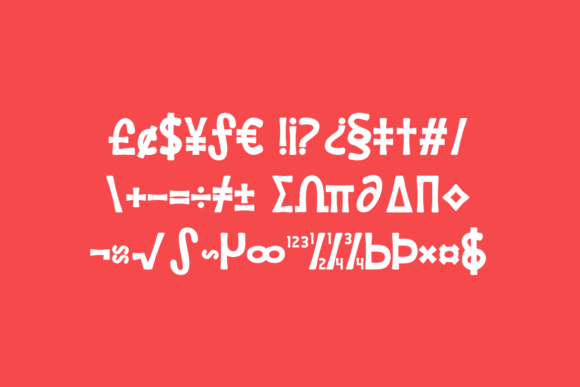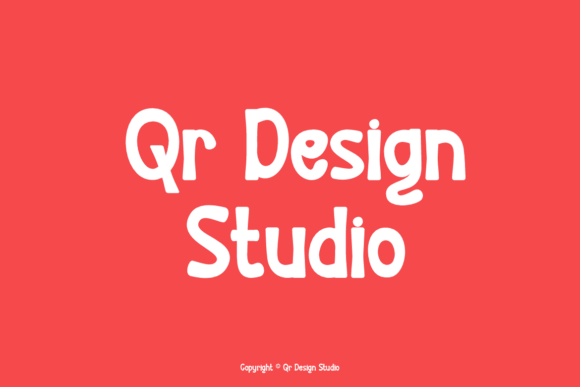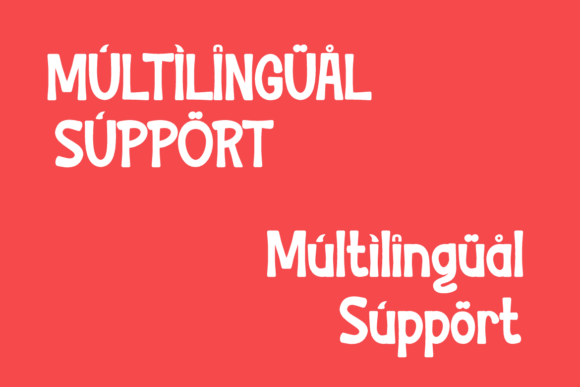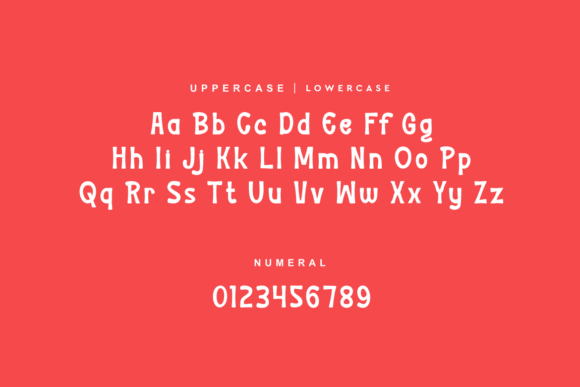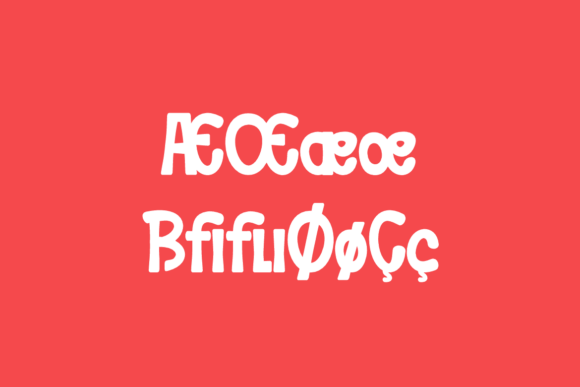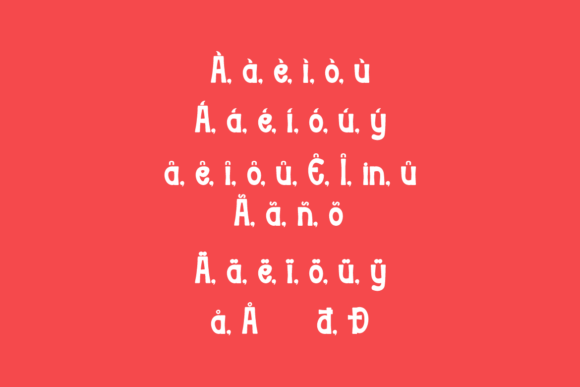
Introduction to Mehogan Font
As a designer, have you ever found yourself searching for the perfect font to bring a smile to a child’s face or add a playful touch to a brand’s identity? You’re not alone. For creatives, the right font can make all the difference in conveying a message or evoking an emotion. That’s why we’re excited to introduce you to Mehogan Font, a rounded and playful kids’ font designed to bring joy and friendliness to your creative projects.
With its high-quality design and free download option, Mehogan Font is a valuable resource for designers looking to add a touch of whimsy to their work. Whether you’re designing for kids or simply want to create a fun and inviting atmosphere, this font is the perfect companion for bright and happy creations. From transparent background options to multilingual support, Mehogan Font is ready to bring a smile to projects worldwide.
As a design resource, Mehogan Font is a game-changer for creatives looking to elevate their work with a high-quality, playful font. So why settle for a generic font when you can add a little bit of magic to your designs with Mehogan Font?
Key Features of Mehogan Font
- High-quality, modern sans-serif design perfect for creative projects.
- Features a transparent background, allowing for seamless integration into designs with complex backgrounds.
- Designed with a clean and minimalist aesthetic, ideal for use in logos, typography, and branding materials.
- Perfect for designers working on creative projects, Mehogan Font is a versatile and reliable design resource.
Honest Review: Mehogan Font
As a designer, I’m always on the lookout for high-quality design resources that can elevate my creative projects. The Mehogan Font has caught my attention, and I’m excited to share my honest review with you.
- The font’s modern and sleek design makes it perfect for creative projects that require a clean and minimalist aesthetic.
- The font comes with a transparent background, allowing designers to easily customize and manipulate the design to fit their needs.
- The Mehogan Font may not be suitable for projects that require a wide range of font styles or weights, as it’s primarily a single font family.
- The font’s design may not be as versatile as some other fonts, which could limit its use in certain creative projects.
Overall, the Mehogan Font is a solid design resource that can add a touch of elegance to your creative projects. While it may have some limitations, its high-quality design and free download make it an excellent choice for designers who are looking for a reliable and affordable font.
Mehogan Font is ideal for use in creative projects, such as logos, posters, and social media graphics. Its high-quality design and transparent background make it a versatile design resource for a wide range of applications.